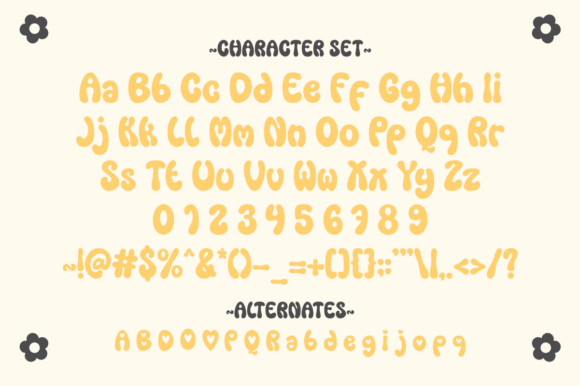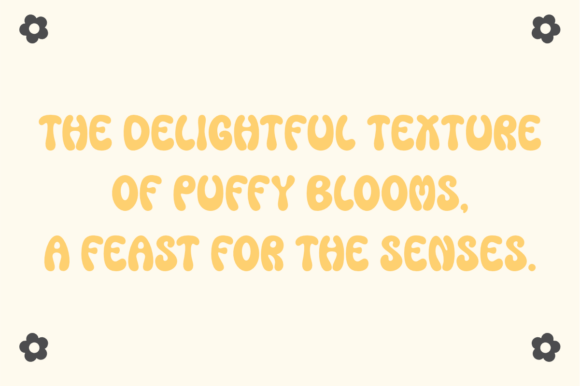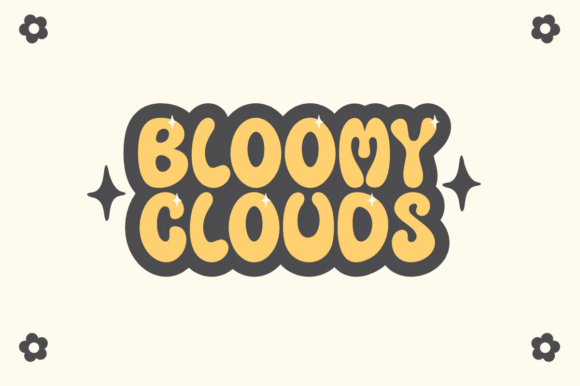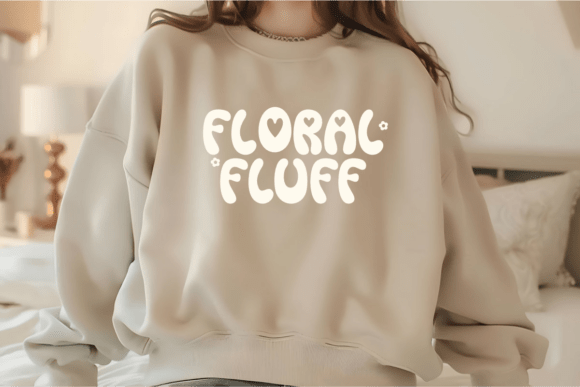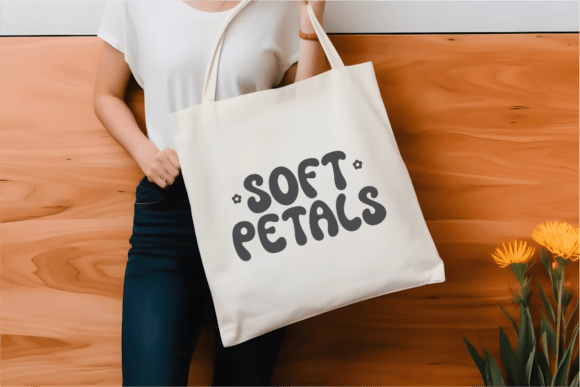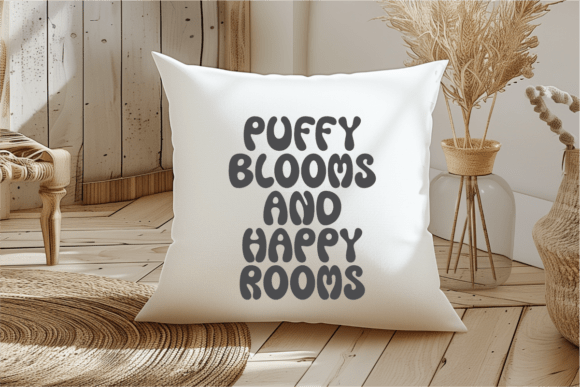
Introduction to Puffy Bloom Font
Have you ever found yourself staring at a blank canvas, searching for the perfect spark to ignite your creativity? For designers, that moment of inspiration can be elusive, but what if I told you that the solution lies in a font that’s as charming as it is bold? Enter the delightful Puffy Bloom Font, a whimsically captivating design resource that’s about to revolutionize your creative project.
This high-quality font is more than just a pretty face – it’s a game-changer for designers who crave a unique touch that sets their work apart. With its transparent background and versatile style, Puffy Bloom Font is the perfect addition to any design arsenal. Whether you’re working on a free download or a high-end branding project, this font’s endearing whimsy will add a touch of magic to your creations.
Key Features of Puffy Bloom Font
- Puffy Bloom Font is a high-quality design resource ideal for creative projects, offering a unique and playful touch.
- Features a transparent background, allowing for seamless integration with various design elements and backgrounds.
- Includes a large character set, including uppercase and lowercase letters, numbers, and punctuation marks, making it suitable for various design applications.
Honest Review: Puffy Bloom Font
I recently had the chance to work with the Puffy Bloom Font, and I must say it’s a delightful addition to any creative project. This font is a great design resource for those looking to add a touch of whimsy and elegance to their work.
- High-quality design: The Puffy Bloom Font is beautifully crafted, with intricate details and a transparent background that makes it easy to layer over other elements.
- Unique style: The Puffy Bloom Font’s unique, hand-drawn style sets it apart from more generic fonts and adds a touch of personality to any design.
- ⚠️ Limited font sizes: While the font looks great at larger sizes, it can become pixelated at smaller font sizes, which may be a limitation for some designers.
Overall, I’m impressed with the Puffy Bloom Font and would definitely recommend it to designers looking for a high-quality, unique font to add to their design resource library. It’s a great choice for any creative project, from wedding invitations to digital products.
Common Use Cases for Puffy Bloom Font
The Puffy Bloom Font is suitable for various creative projects, including wedding invitations, baby shower invitations, and social media graphics. Its high-quality design and transparent background make it an excellent choice for designers looking to add a touch of elegance to their work.